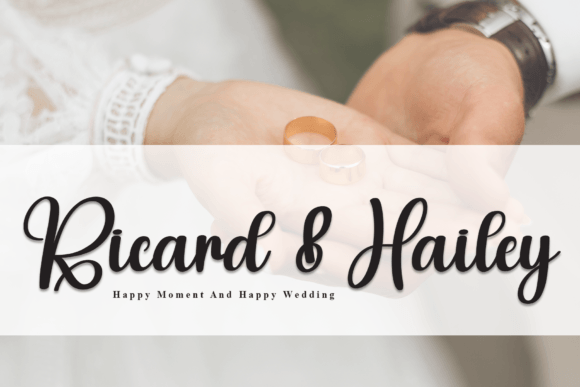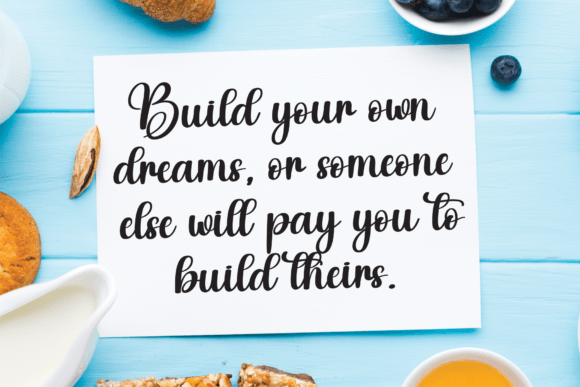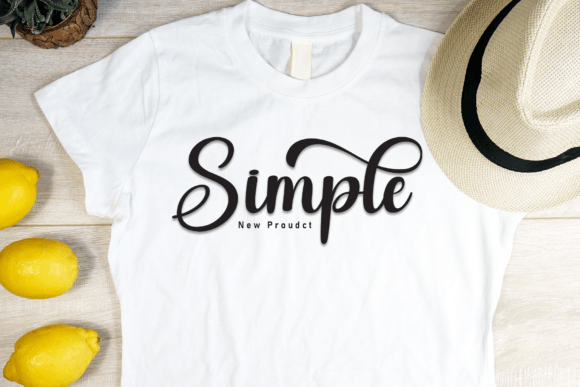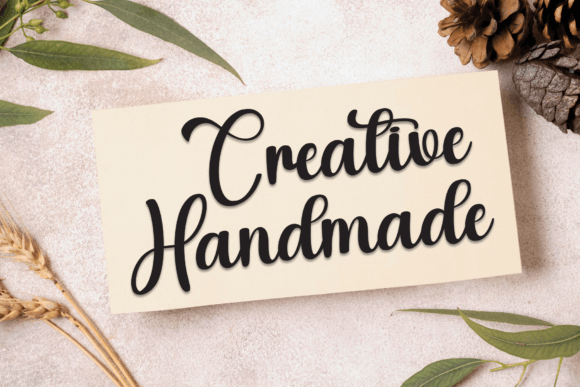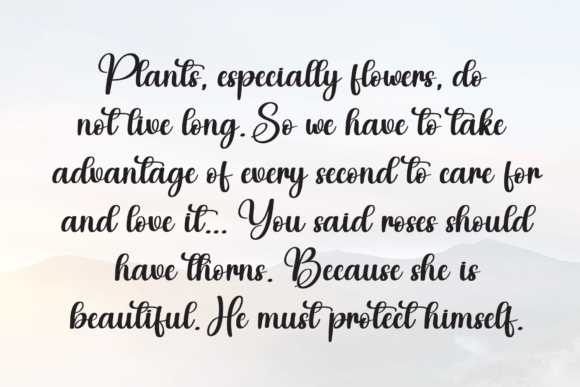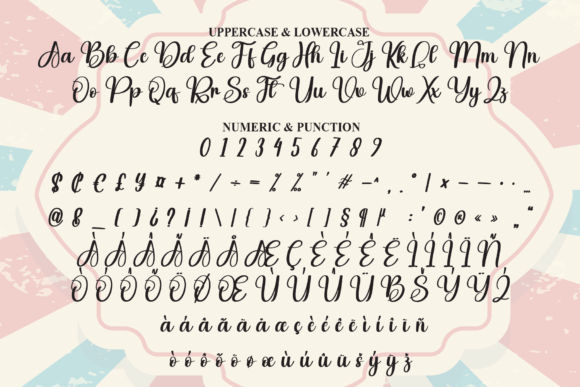
Introduction to Chunky Retro Font
Chunky Retro is a stylish handwritten script font that exudes elegance and charm with its flowing, graceful curves.
Perfect for invitations, logos, and branding, it adds a personal and sophisticated touch to any design The fontโs delicate strokes bring warmth and creativity to your projects.
Key Features of Chunky Retro Font
Why Choose Chunky Retro Font?
Chunky Retro Font offers exceptional quality and versatility, making it a valuable addition to your design toolkit. Whether you’re creating for personal projects or commercial use, Chunky Retro Font delivers professional results.